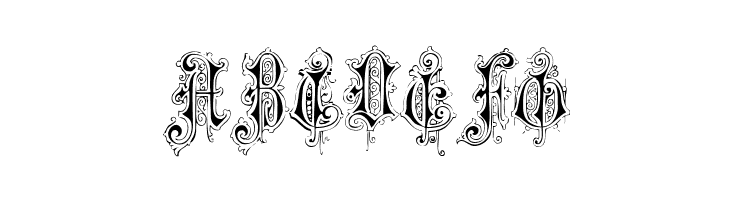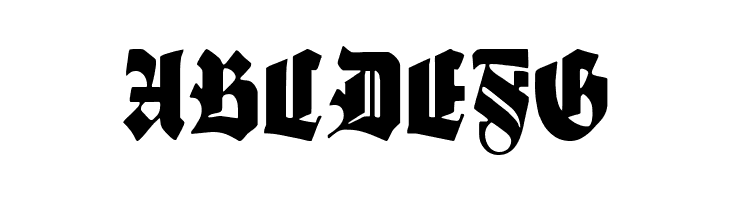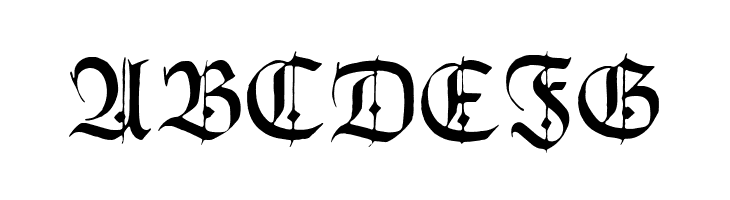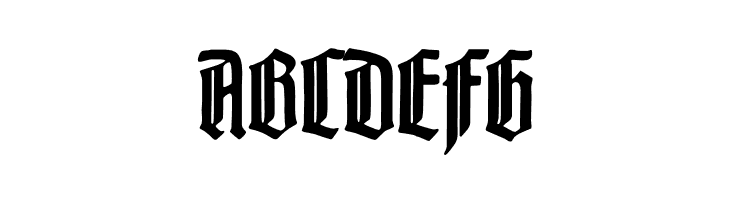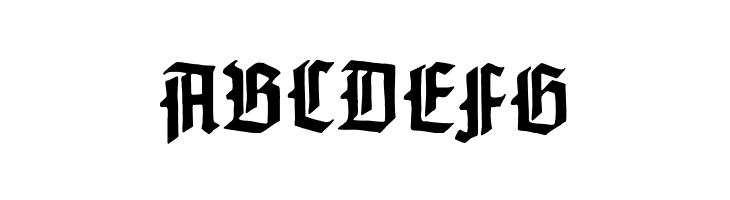
ThannhaeuserZier Font
Font by Dieter Steffmann
An ornate and sophisticated font with intricate calligraphic details.
WallauZierBold Font
Font by Dieter Steffmann
A bold, ornate blackletter style font with intricate detailing.
HumboldtFrakturInitialen Font
Font by Dieter Steffmann
An ornate Blackletter font with bold, angular lines and elaborate flourishes.
RedivivaZierbuchstaben Font
Font by Dieter Steffmann
An ornate, decorative font with intricate embellishments and a historical feel.
LiturgischZierbuchstaben Font
Font by Dieter Steffmann
An ornate and intricate Blackletter font with a medieval and historical appearance.